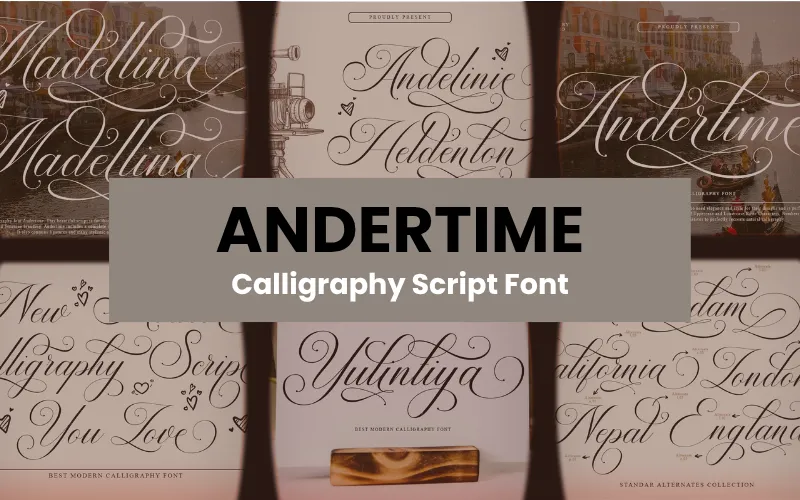
Andertime — Calligraphy Script Font
When a project needs a script font that feels both refined and approachable, Andertime delivers the perfect balance. Andertime is a contemporary calligraphy script available in OTF and TTF formats, designed to elevate your designs with elegant, handcrafted letterforms and flexible typographic features.
• Regular calligraphy script with stylistic swashes, alternates, and ligatures
Ideal uses
Andertime works well across a wide range of creative projects, including:
• Elegant and professional logos
• Romantic, stylish wedding invitations
• Sophisticated product packaging with a handwritten feel
• Eye-catching social media graphics and inspirational quotes
• Book covers, posters, and editorial designs
• Personalized stationery and greeting cards
• Fashion and beauty branding
• Business cards and corporate stationery
• Special characters: Stylistic alternates & ligatures
A preview of the Andertime font is provided with the product so you can see its letterforms and stylistic options before use.